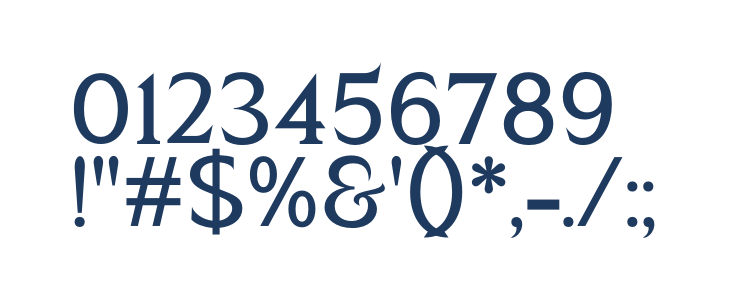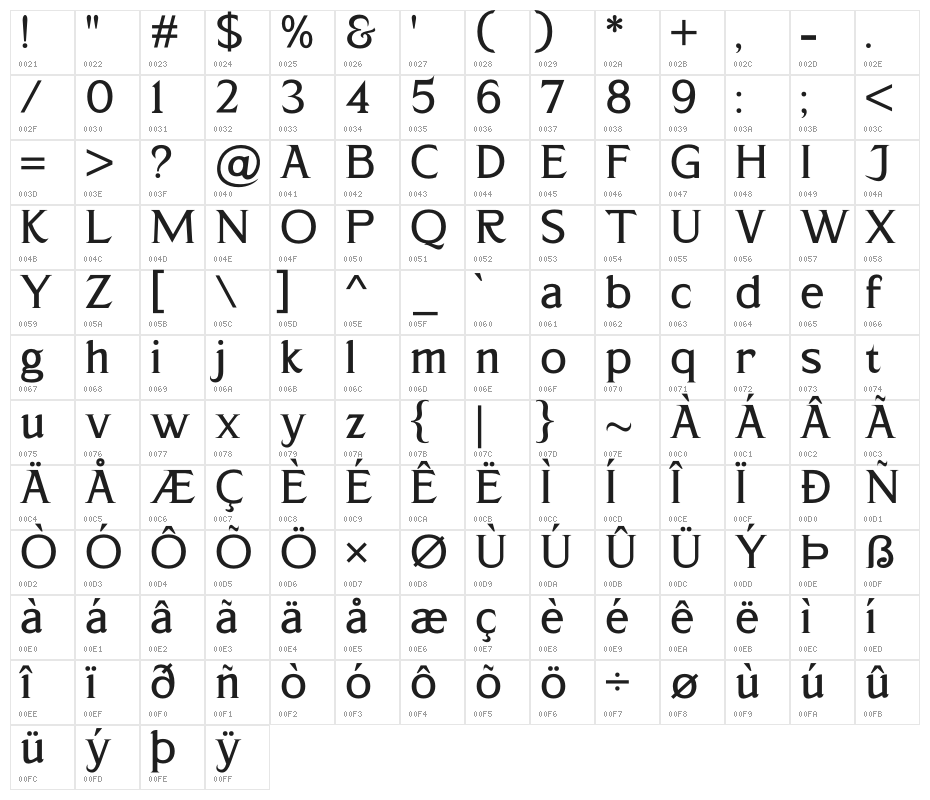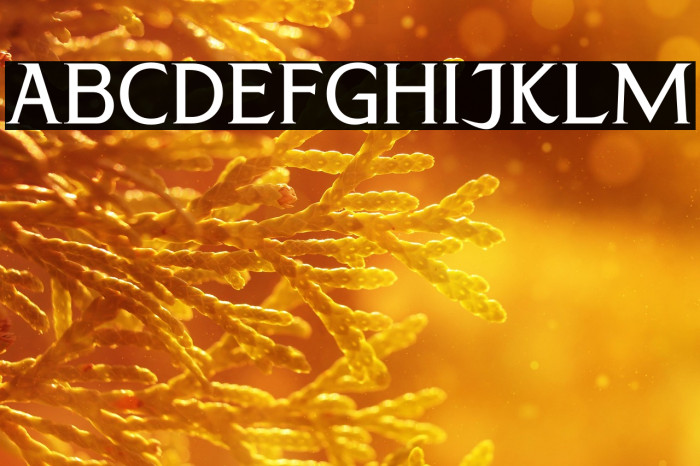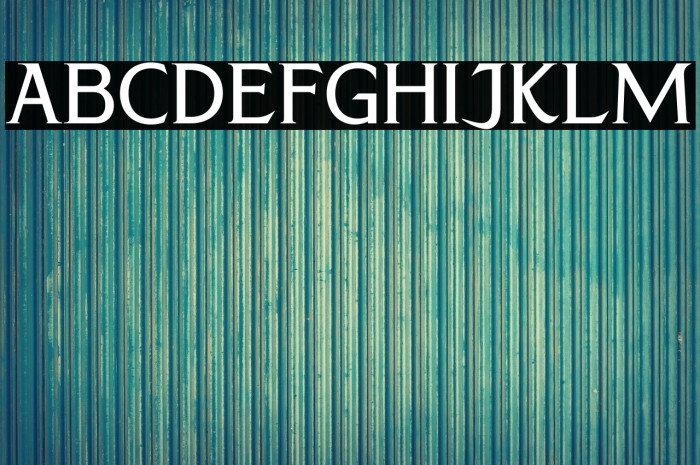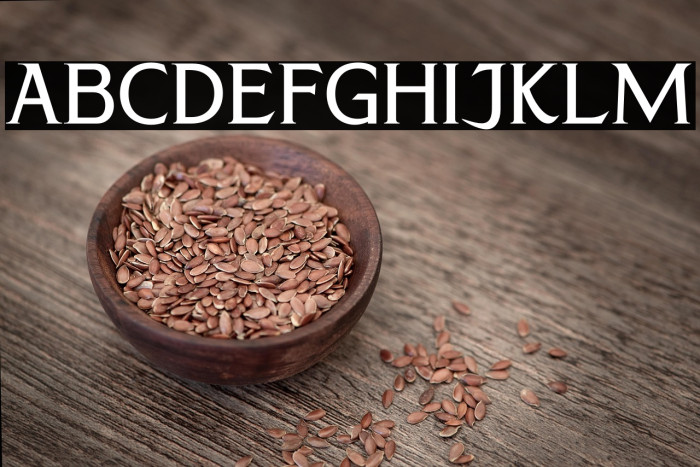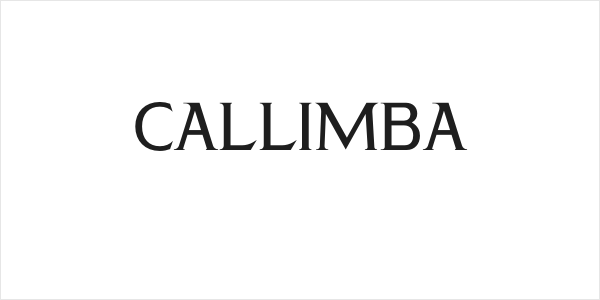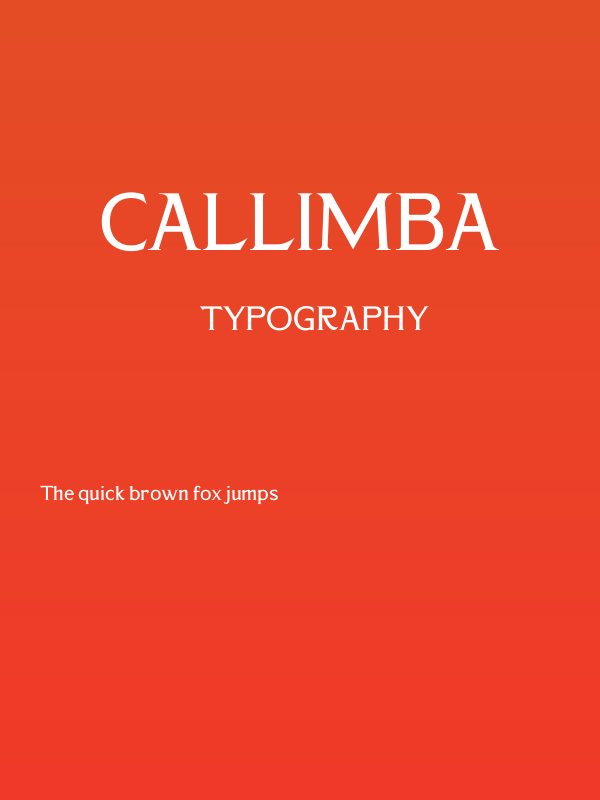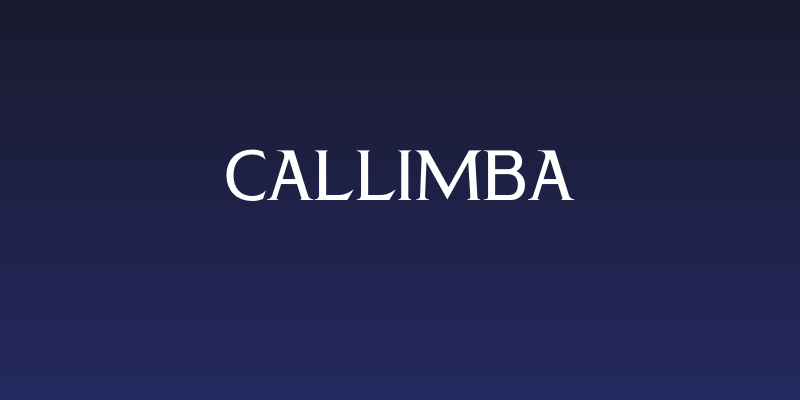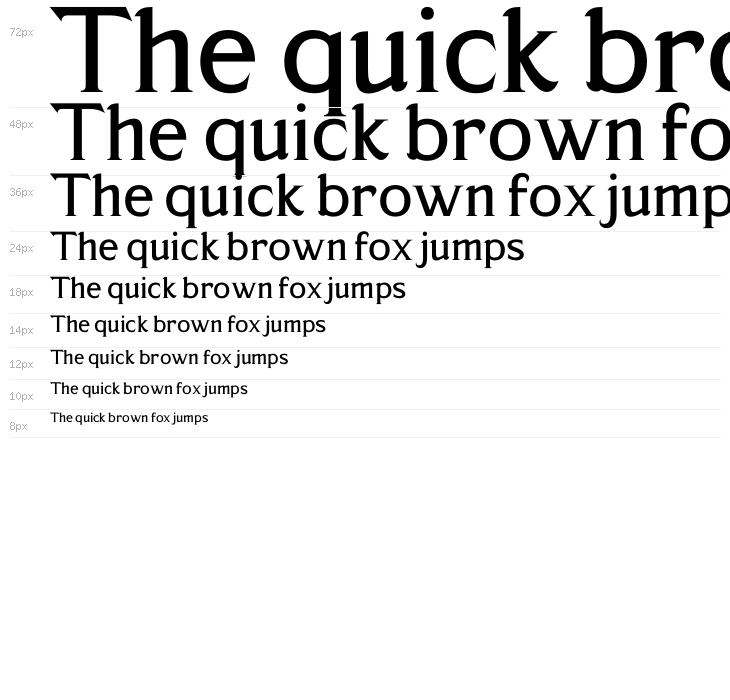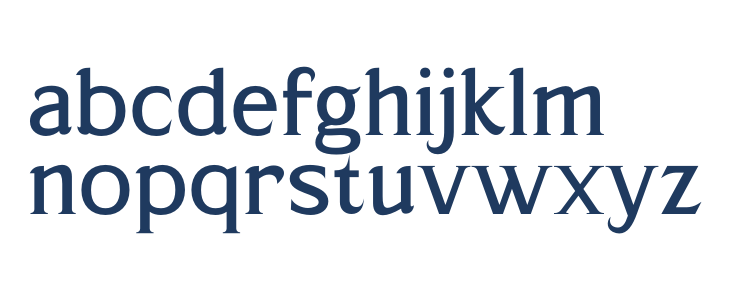
CALLIMBA Font
CALLIMBA Description
This font features a classic serif style with elegant and refined strokes. The uppercase letters are bold and commanding, while the lowercase letters maintain a consistent and harmonious flow. The numerals are clear and easily distinguishable, making them suitable for various applications. Special characters are well-integrated, maintaining the overall aesthetic of the font. The design is timeless, suitable for both traditional and modern contexts, offering versatility in its application.
Proposed ProjectsIdeal for book covers, editorial design, formal invitations, and branding projects that require a touch of elegance.